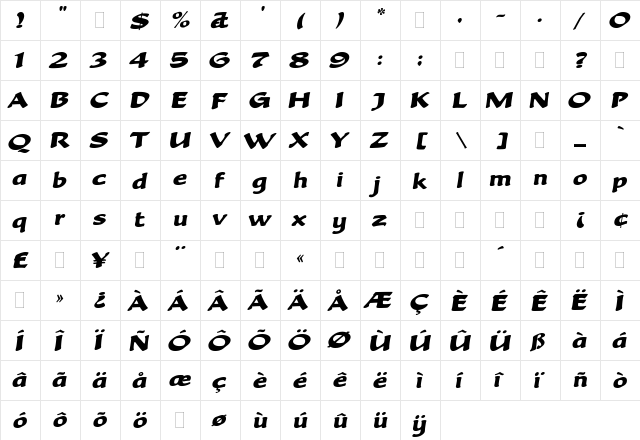
BeckaScriptPlain Regular
Design Context for BeckaScriptPlain Typeface
BeckaScriptPlain brings a calligraphic fluidity to the page — its connecting strokes and expressive curves give it an unmistakably human quality.
Font Pairing: Combine BeckaScriptPlain with a simple geometric sans for maximum contrast — the tension between flowing curves and clean structure is a classic typographic pairing.
Pro Tip: Pair BeckaScriptPlain with a clean sans-serif for supporting text. The contrast between fluid script and geometric structure creates an elegant typographic hierarchy.